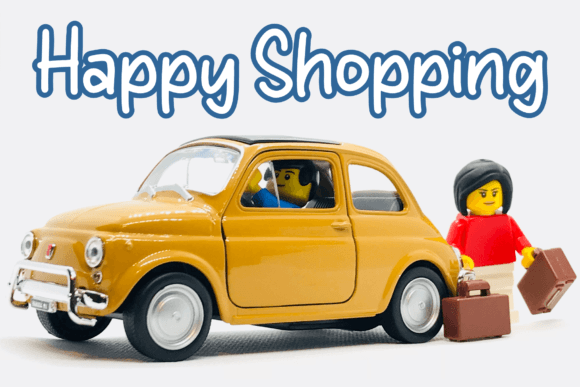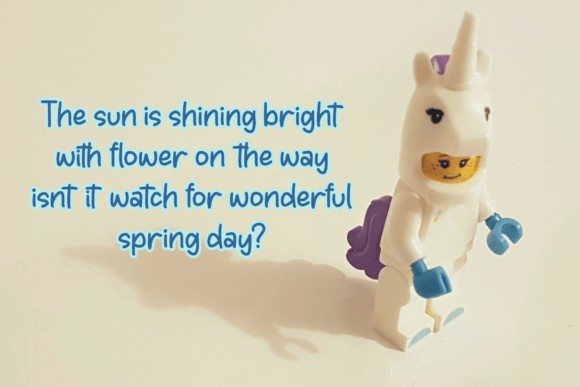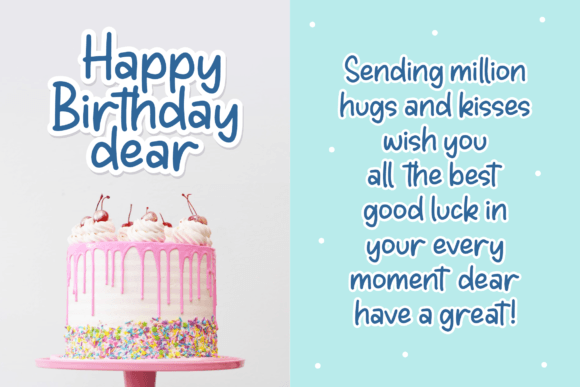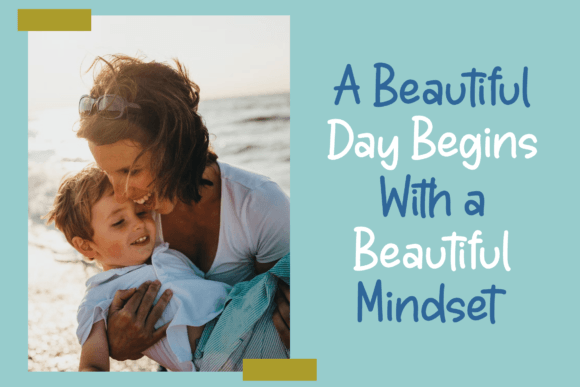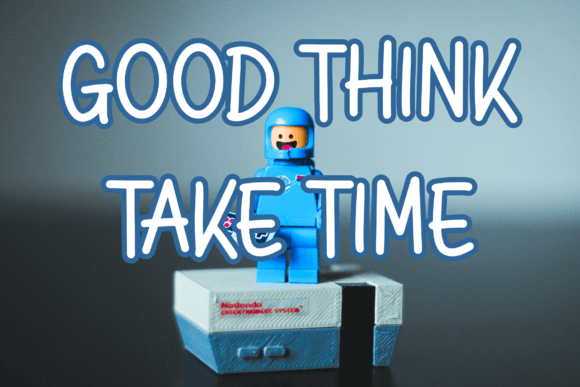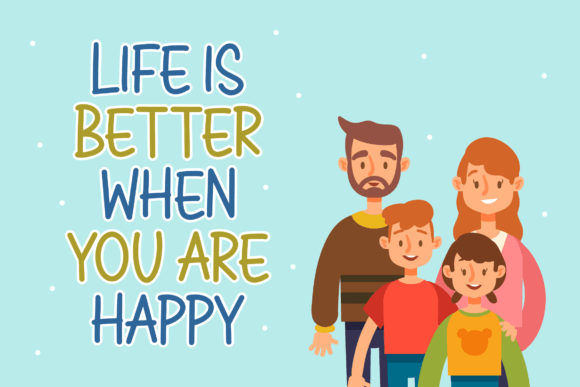
Introduction to Pluiter Lighties Font
Pluiter Lighties feels playfully handmade and delivers an incredibly playful handwritten font.
Use this display font to add that special playful touch to any design idea you can think of Masterfully designed to become a true favorite, this font has the potential to bring each of your creative ideas to the highest level.
Key Features of Pluiter Lighties Font
Why Choose Pluiter Lighties Font?
Pluiter Lighties Font offers exceptional quality and versatility, making it a valuable addition to your design toolkit. Whether you’re creating for personal projects or commercial use, Pluiter Lighties Font delivers professional results.